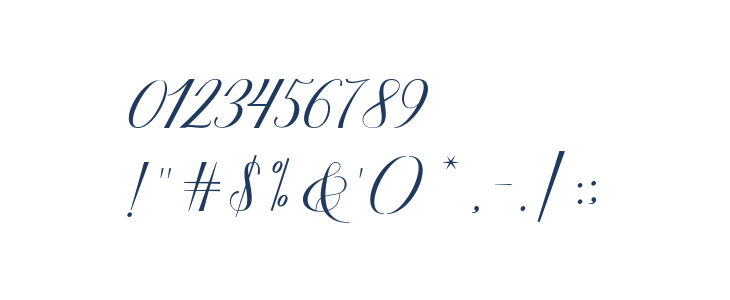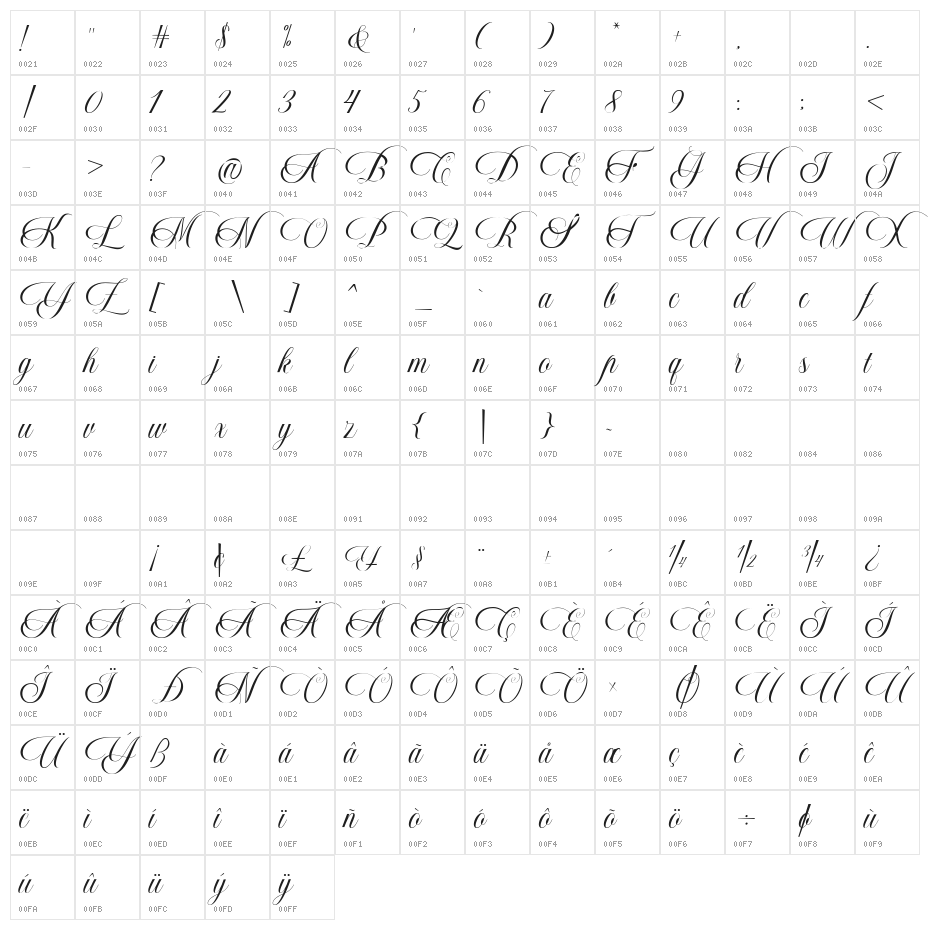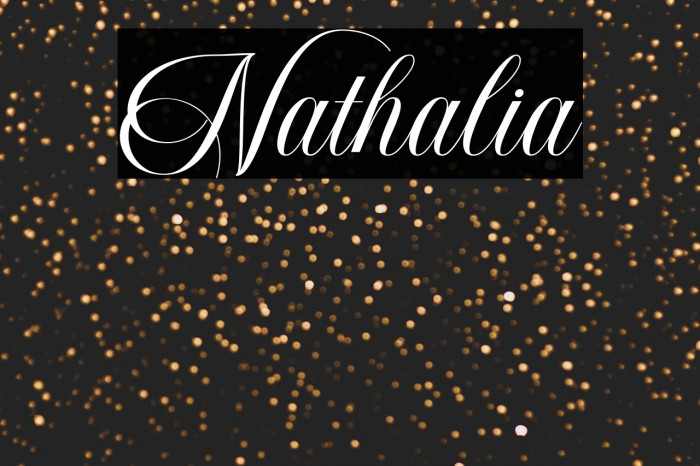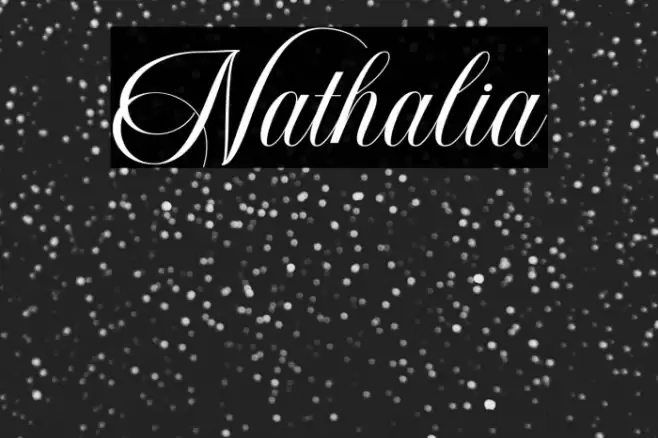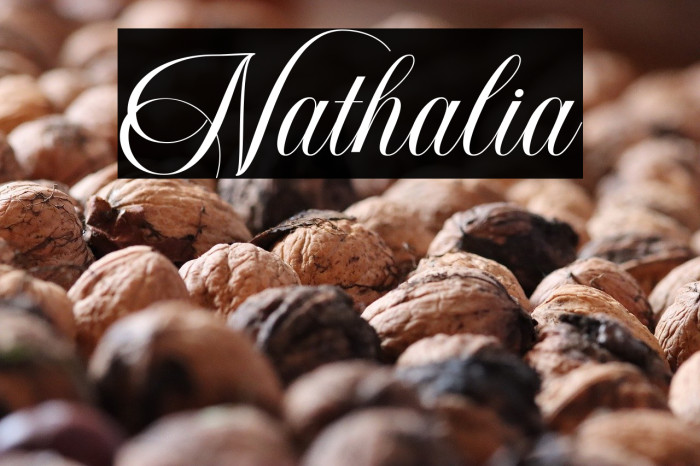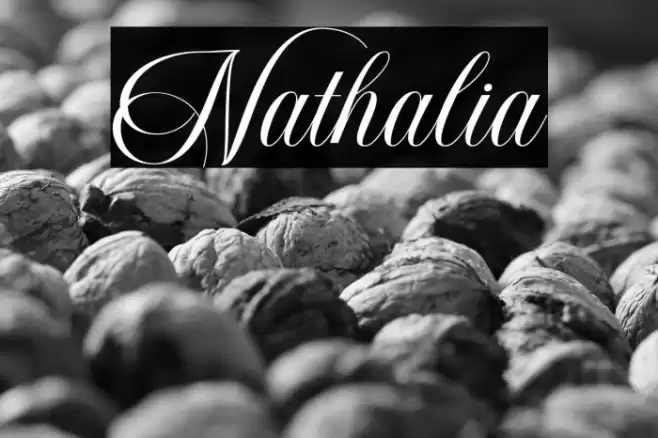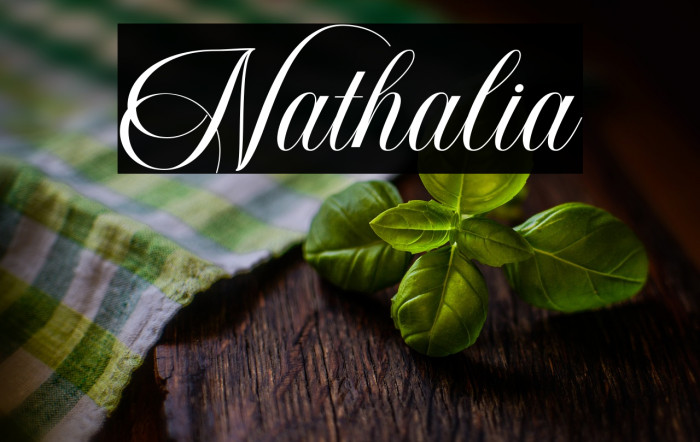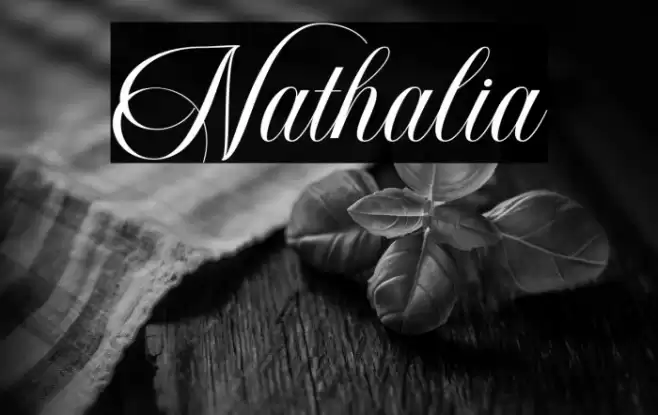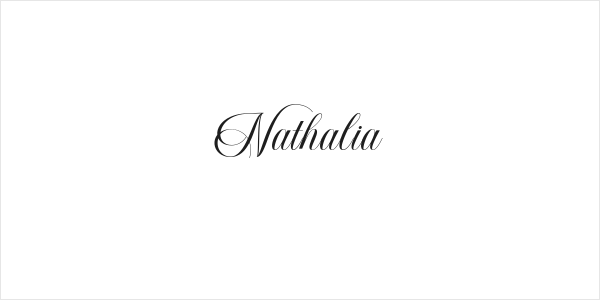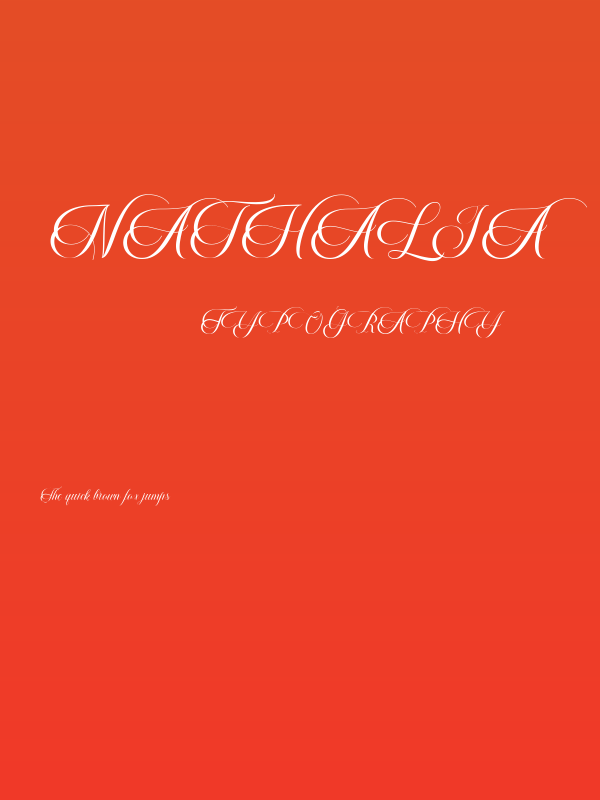
Nathalia Font
Nathalia Description
This elegant script font features a sophisticated and flowing design, characterized by its graceful curves and intricate details. The uppercase letters are adorned with delicate flourishes, giving them a sense of movement and fluidity. The lowercase letters maintain a consistent style, with smooth connections and a slightly slanted orientation, enhancing the font's overall elegance. The numerals are stylishly designed, complementing the script's aesthetic. Special characters are thoughtfully integrated, maintaining the font's cohesive look. This font exudes a sense of refinement and is ideal for projects that require a touch of class and sophistication.